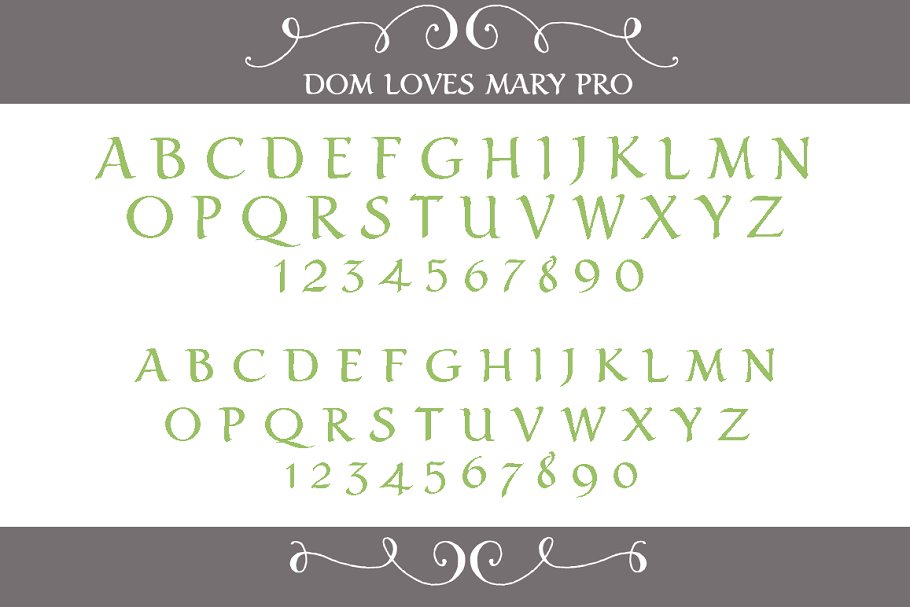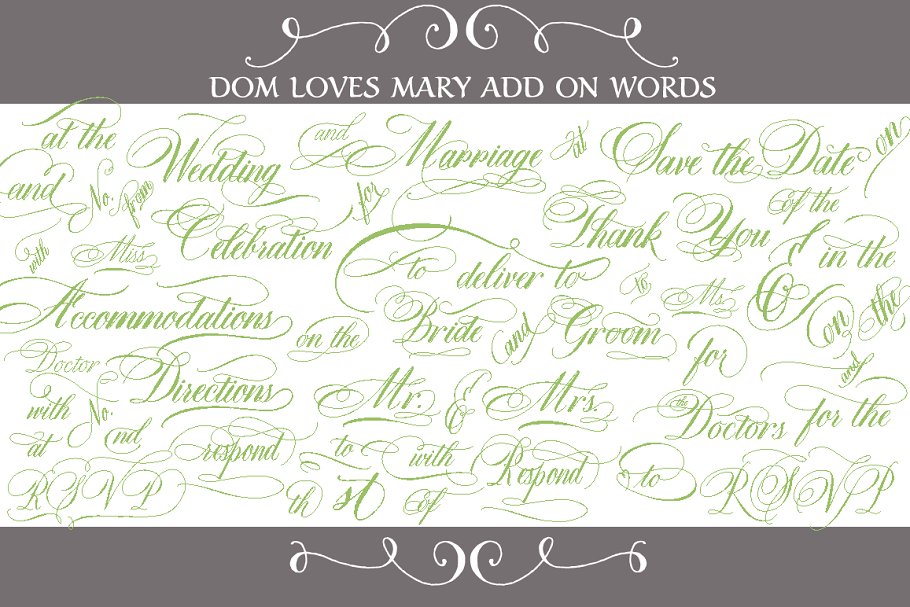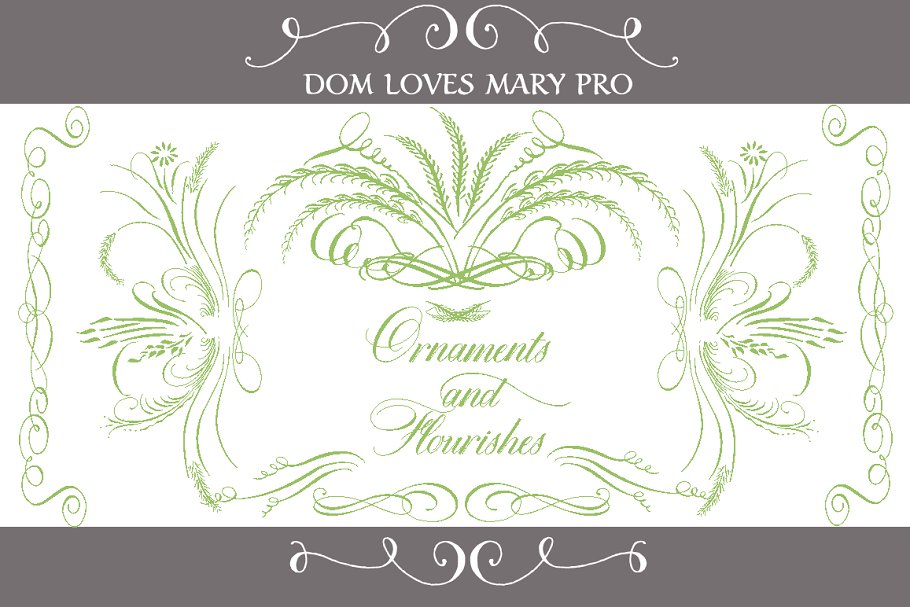
About the Dom Loves Mary Total Design Font
Both sets of additional FLOURISHES to embellish letters, create frames and borders or add separately to add flair66 ADD-ON WORDS most commonly used in Wedding Projects250 flourishes and ornaments ( Ornaments are ONLY accessible in Open Type Capable Programs)Don’t need it all? Each item is sold separately or in smaller packages and is available in this shop
Dom Loves Mary is named in memory of my in-laws, Dominic and Mary Sementelli, Inspired by their 1952 wedding, I sought to create a classic, elegant script font that would serve their memory well, Dom and Mary were opposites who were truly “made for each other”
A snazzy dresser, Mary was feisty, loved to dance, sing, and be the life of the party, Dom was cool, calm and collected and was happy to shine the spotlight on the love of his life, They balanced each other out in a really great way, Debi decided to create a hand-lettered font with them in mind represented by two totally different lettering styles, SCRIPT and TEXT, that were, like Dom and Mary, “made for each other”